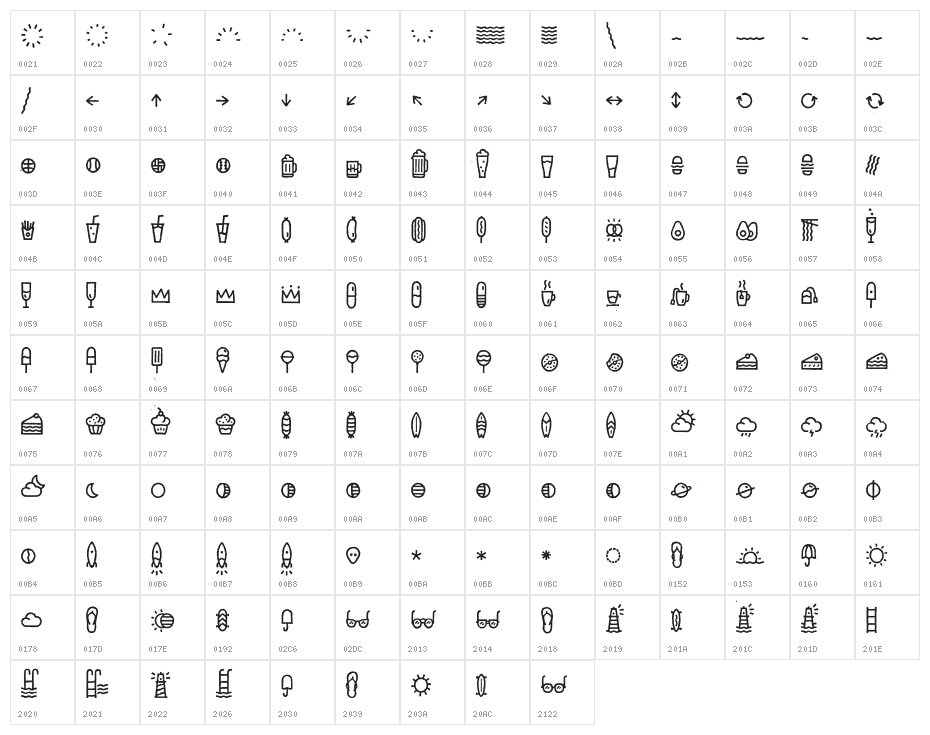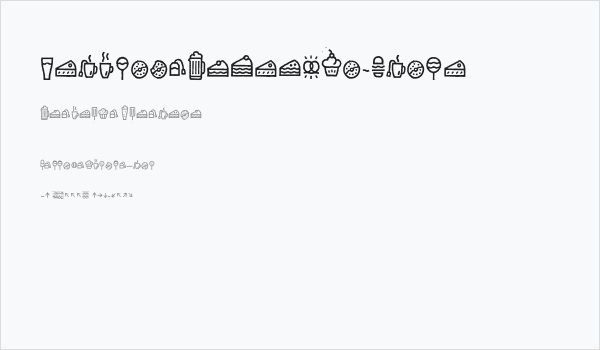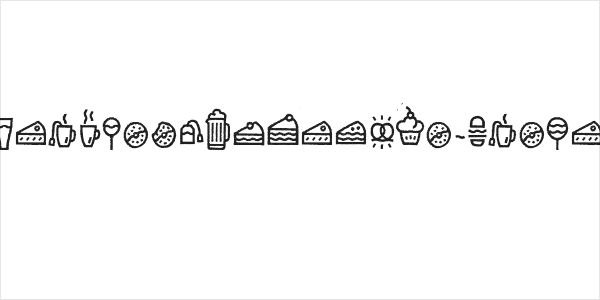
EscalopeCrustTwo-Icons Font
EscalopeCrustTwo-Icons Description
This is a playful and whimsical icon set featuring a variety of food and beverage items, along with directional arrows and decorative symbols. The icons are outlined with a consistent stroke width, giving them a cohesive and uniform appearance. The style is cartoonish and fun, making it suitable for projects that require a lighthearted and engaging visual element. The icons include representations of drinks, fast food, desserts, and other culinary items, as well as arrows and abstract symbols that add to its versatility.
| Use Case | Icons, Decorative elements |
| Proposed Projects | Ideal for use in menu designs, food-related apps, children's books, or playful branding projects. |